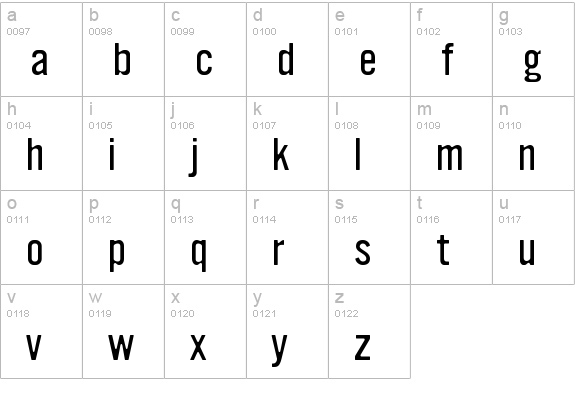
Ultramagnetic Light is a refined, elegant variant in the Ultramagnetic typeface family \xE2\x80\x94 well suited to elegant body text, refined sub-headings, and luxury branding.
Ultramagnetic Light font is a stunning display typeface that effortlessly captures attention with its sleek and modern design. With its clean lines and bold strokes, this font exudes a sense of power and sophistication. Designed with versatility in mind, Ultramagnetic Light font is perfect for a wide range of projects, from bold headlines and eye-catching posters to stylish logos and captivating branding materials. Its distinct letterforms create a striking visual impact, making it an excellent choice for any design that requires a touch of elegance and personality. One of the most remarkable features of Ultramagnetic Light font is its ability to convey a sense of freedom and creativity. This font allows designers to express their artistic vision with ease, as its unique and captivating style adds a touch of originality to any project. And the best part? Ultramagnetic Light font is freely available to download at FontsMarket.com. Whether you're a professional designer or an aspiring creative, this font empowers you to bring your ideas to life without any limitations. With just a few clicks, you can access this incredible font and start creating stunning designs that will make a lasting impression. So, why settle for ordinary when you can have extraordinary? Download Ultramagnetic Light font today and let your creativity soar to new heights. Unleash the power of this font and watch as your designs captivate audiences and leave a lasting impact.